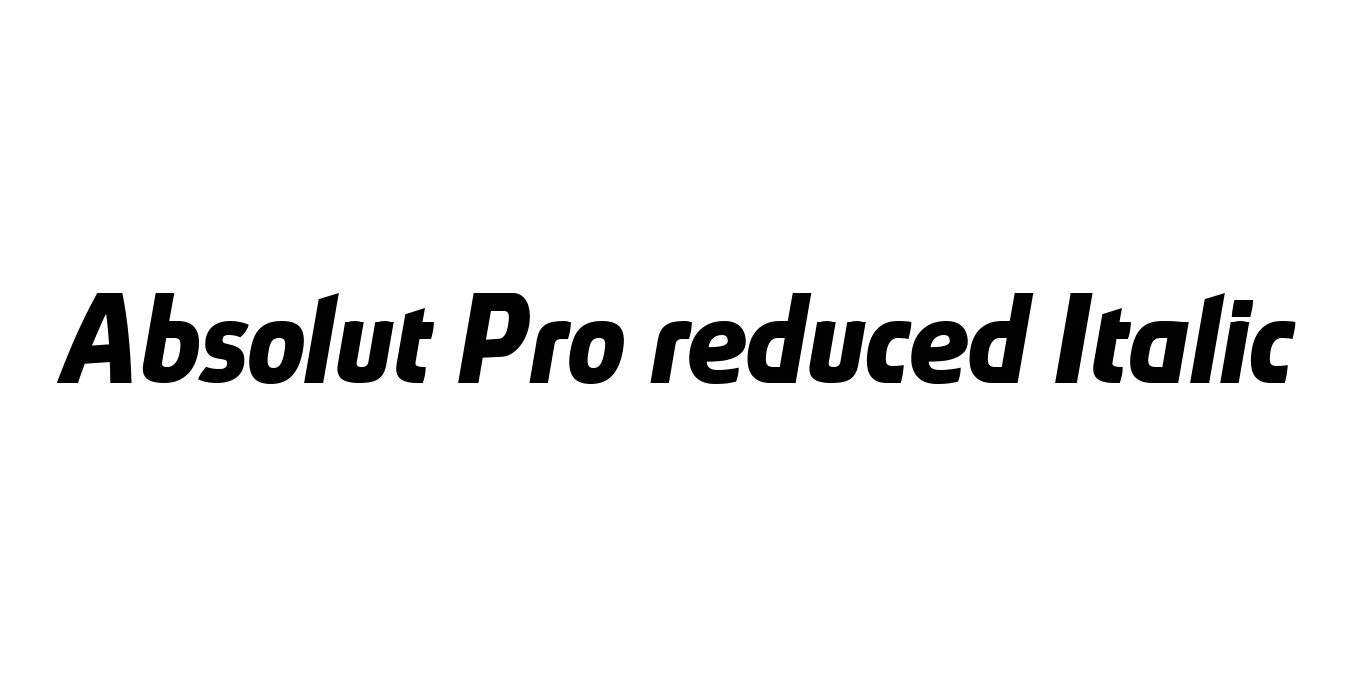
Absolut Pro reduced Italic
Designed by Ingo Zimmermann
Absolut Pro reduced Italic is a sophisticated geometric sans-serif typeface designed by Ingo Zimmermann for IngoFonts. This font family is deeply rooted in the functional aesthetics of the early 20th-century modernism, taking heavy inspiration from classics like Futura while incorporating contemporary refinements. The 'reduced' version is specifically curated to offer a streamlined character set, focusing on clarity and essential typographic forms that excel in both digital and print environments.
The Italic weight provides a dynamic lean that adds a sense of motion and emphasis without losing the rigid geometric structure that defines the Absolut Pro family. Its clean lines, circular curves, and sharp terminals make it an exceptional choice for technical documents, architectural branding, and high-fashion editorial layouts. It serves as a bridge between the mathematical precision of the Bauhaus movement and the flexible needs of modern-day graphic design.
Absolut Pro reduced Italic Best Uses
Ideal for creating a tech-forward and professional brand identity.
Perfect for modern magazine headlines and highlighted quotes.
Excellent for clean, readable headers and navigational elements.
Lends a premium, minimalist look to luxury and tech product packaging.